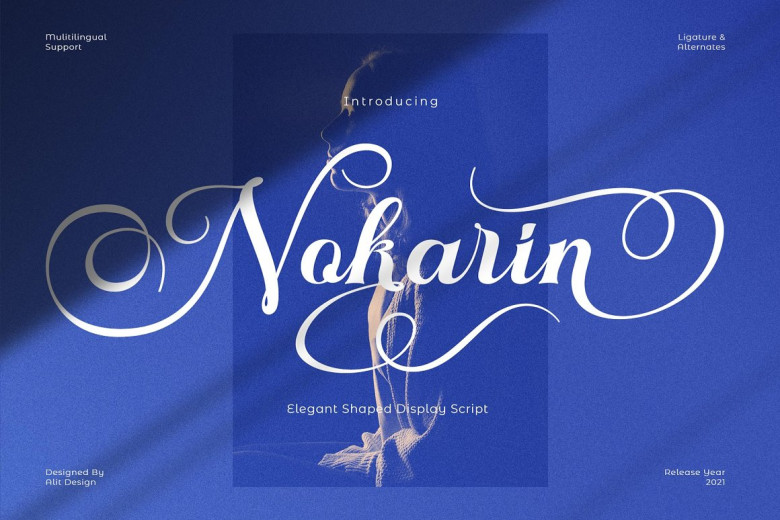
Harmony A font that feels very inspired by a elegant script with calligraphy. are very carefully designed to be united to offer many possibilities to the designer. perfectly suited for fine wedding themes, invitation favorites, book covers, greeting cards, logos, branding, business cards, certificates, or any work, in any design that requires classic, formal or extravagant. sounds great, suitable for your fun and excitement, and you are increasingly encouraged as well as support for your creativity! then you can use this font very sure.
Desain elegant script “Nokarin Font”, is a font that is very easy to apply to any design, especially for themes with elegant concepts, designs that are smooth, but apart from this font it is very easy to use in design tasks and for non-design because all alternates and OpenType features like standard ligature; stylistic alternate, understated. could be used clearly. all alternates, products, and cover letters will have been declared inside.
Nokarin Calligraphy Script Font